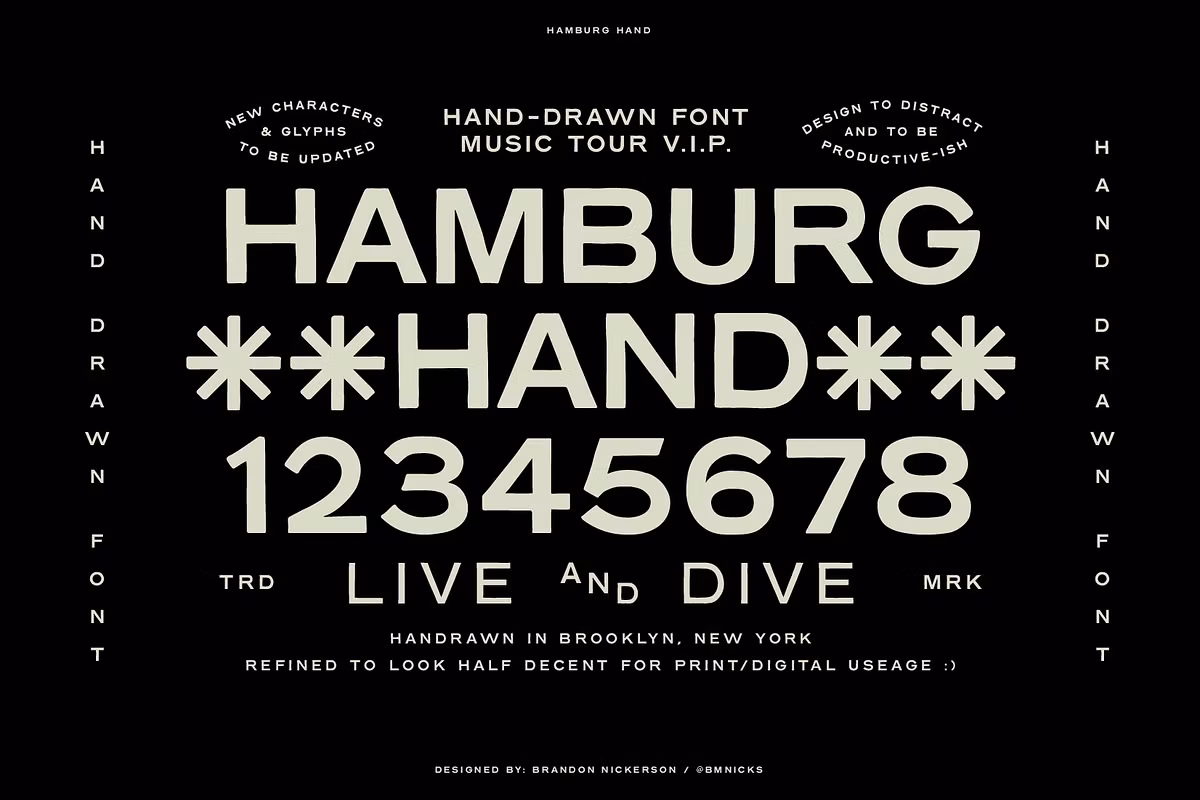
Hamburg Hand Font Free Download is a charming, hand-drawn typeface that brings warmth and personality to your designs. With its natural strokes and casual feel, this font is perfect for branding, invitations, social media posts, and any project that needs a touch of human authenticity. It mimics real handwriting, making it ideal for conveying friendly, approachable messaging.
Designed to balance legibility with creative flair, Hamburg Hand includes a full set of uppercase and lowercase characters, punctuation, and numerals. Whether you're working on a heartfelt quote graphic or a playful product label, this font adds character without sacrificing readability.